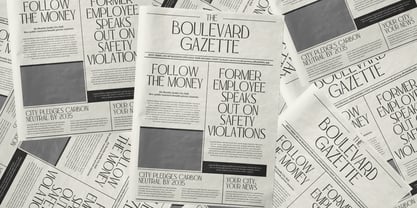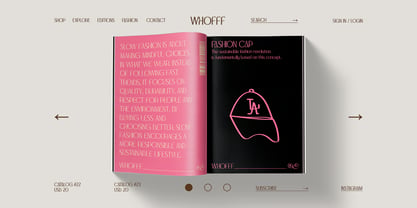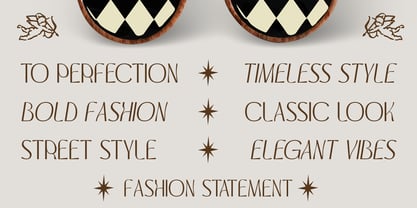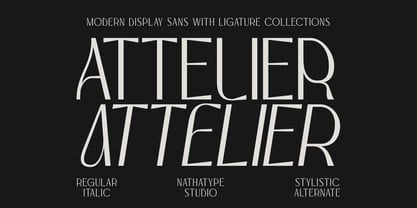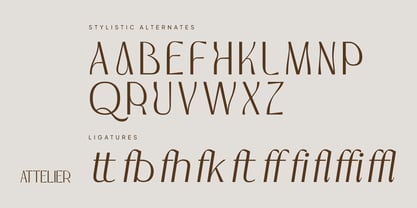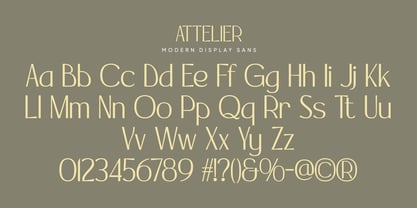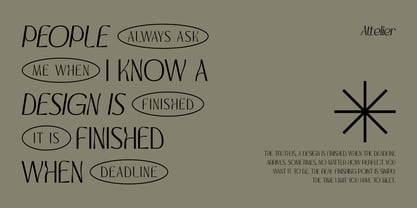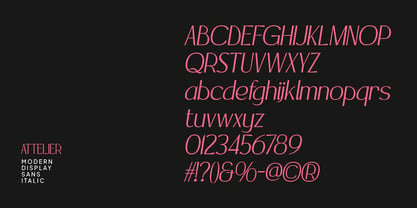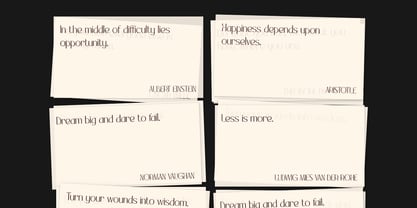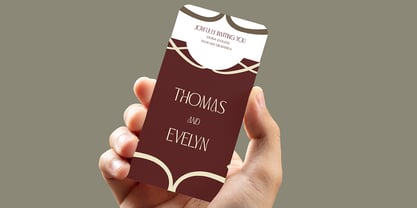
Attelier
by Nathatype
Attelier is a refined display sans serif font. Created for designers who appreciate subtle sophistication, Attelier delivers a sleek and contemporary look that feels both timeless and forward-thinking. Its delicate strokes and carefully balanced proportions make it an excellent choice for high-end visual projects where clarity, style, and precision are essential. With its lightweight structure, Attelier offers a graceful appearance that enhances readability while maintaining a strong visual identity. In addition, enjoy the features here. Features: Multilingual Supports PUA Encoded Numerals and Punctuations Attelier fits in logos, quotes, branding, posters, and many more designs. Find out more ways to use this font by taking a look at the font preview. Thanks for purchasing our fonts. Hopefully, you have a great time using our font. Feel free to contact us anytime for further information or when you have trouble with the font. Thanks a lot and happy designing.
Designers: Donis Miftahudin
Foundry: Nathatype